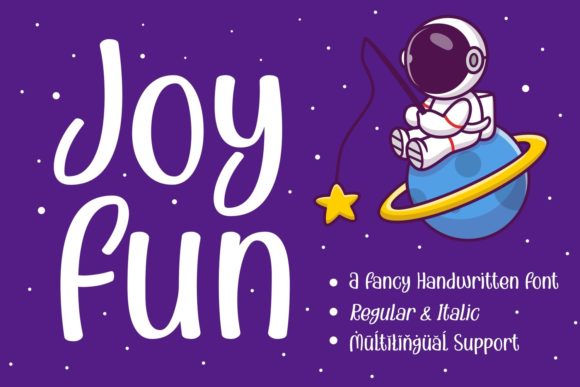
Introducing Joyfun Font - the perfect script font to add a touch of warmth and joy to your designs! Created by the talented designer, Lian-7NTypes, Joyfun is a versatile and flexible handwritten font that will make your designs stand out.
The Joyfun Font is the epitome of sweetness, featuring a warm, romantic, and jolly vibe that is perfect for a variety of design projects. Whether you're designing wedding invitations, social media graphics, or branding materials, this font will bring your ideas to life.
One of the best things about Joyfun is its flexibility. This font is incredibly easy to work with, allowing you to explore endless variations and experiment with different styles. With Joyfun, you can create unique and eye-catching designs that are sure to leave a lasting impression on your audience.
So, why should you download Joyfun Font? Because it's not just a font, it's a tool to express your creativity and bring your ideas to life. It's perfect for designers who want to add a personal touch to their work, and for anyone looking for a font that exudes warmth, joy, and fun.
With Joyfun, you can create designs that are playful, romantic, elegant, or whimsical. The possibilities are truly endless! So, whether you're a professional designer or a DIY enthusiast, Joyfun Font is a must-have in your font collection.
In summary, Joyfun Font is a sweet, all-round, and flexible handwritten font that will turn each of your project ideas into real works of art. So, don't miss out on the opportunity to add this beautiful font to your collection and start creating stunning designs today!